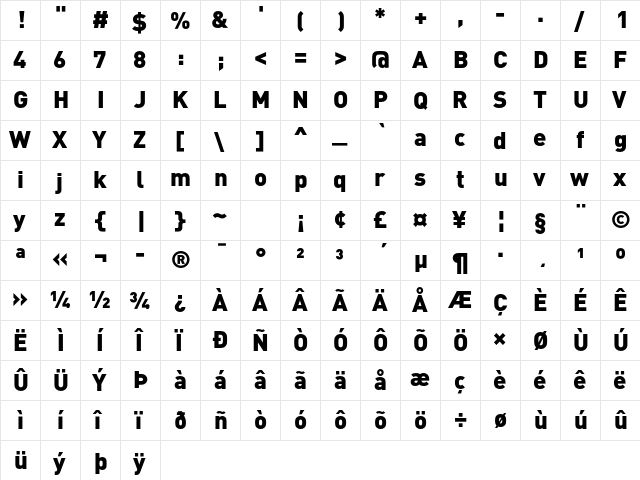
DINPro-Black Regular
| Designer | Albert-Jan Pool |
Design Context for DINPro-Black Typeface
DINPro-Black offers clean, dependable letterforms without strong stylistic allegiance, making it a practical choice for designers who need flexibility.
Pro Tip: Pair DINPro-Black with a font of contrasting weight or personality to build a more expressive typographic hierarchy.